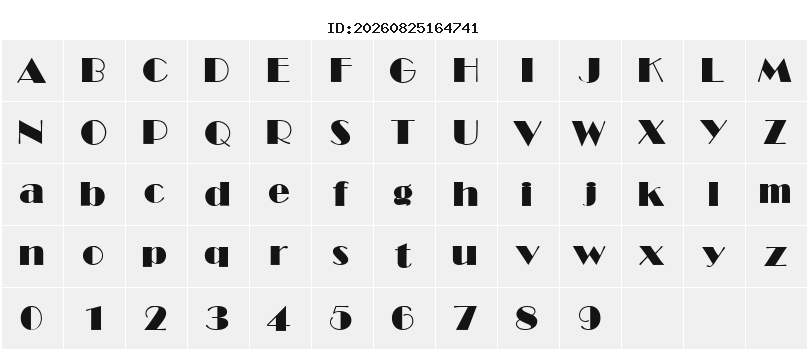
SHOW Preview
• Font Name: SHOW
• Font Style: Light
• Full Font Name: SHOW Light
About SHOW.ttf
SHOW.ttf is a modern, elegant sans-serif font designed for ultimate readability and visual harmony. Perfect for branding, headlines, web design, and print materials.